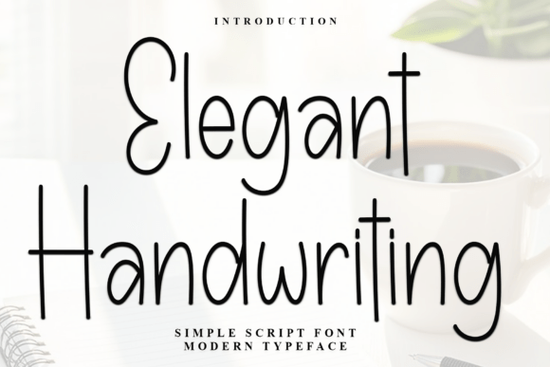
If you're looking for a script font that feels personal, graceful, and quietly confident not flashy or overdesigned Elegant Handwriting Font fits naturally into real creative work. It’s not just another swirly script; its soft entry and exit strokes, subtle contrast, and gentle rhythm make it feel hand-drawn without sacrificing readability. Whether you’re designing wedding stationery, labeling handmade soap jars, or creating social media graphics for a small boutique, this font adds warmth without shouting for attention.
When does Elegant Handwriting Font work best?
This font shines where authenticity matters more than perfection. Think handwritten-style quotes on greeting cards, delicate monograms on linen napkins, or minimalist product tags for ceramic mugs. Because it includes full Latin character sets including punctuation, numbers, and multilingual accents it handles real-world use cases: bilingual baby announcements, café menus with French accents, or Etsy shop banners that need both uppercase flair and lowercase flow.
It’s especially useful if you’ve tried other script fonts only to find they either look too stiff (like calligraphy traced from a rigid template) or too chaotic (with unpredictable ligatures that break layout consistency). Elegant Handwriting strikes a balance: each letter connects smoothly but predictably, and spacing stays even across words even at smaller sizes like 14–16pt in printed labels or digital overlays.
How it compares to similar script fonts on Creative Fabrica
While Wistallion Font leans into bolder, high-contrast drama great for logos or headlines Elegant Handwriting is softer and more adaptable for body text or layered compositions. If you love the romantic feel of Sweet Marigold Font, you’ll recognize a shared gentleness here but Elegant Handwriting has slightly more open counters and less tight baseline alignment, which helps with legibility in longer phrases.
For wedding-focused projects, Bride Squad Font brings playful energy and bounce, while Elegant Handwriting offers quieter elegance ideal when your client prefers “timeless” over “trendy.” And unlike Stanley Font, which uses sharp angles and modern geometry, this one keeps its curves organic and unhurried.
Practical tips for using it well
Script fonts can be tricky to pair, but Elegant Handwriting works beautifully with clean, neutral sans-serifs like Montserrat, Lato, or Open Sans. Try setting headlines in Elegant Handwriting and body copy in a light-weight sans-serif this contrast creates visual hierarchy without competing personalities.
Avoid stacking multiple script fonts on one layout. One is enough. If you want variation within the same family, use the font’s built-in stylistic alternates (if included) or switch weight only e.g., regular for names, light for taglines. Also, test print samples early: some scripts lose subtlety on low-resolution printers or matte paper. A quick test strip of “The quick brown fox…” helps spot spacing hiccups before final output.
Where you’ll see it used most often
- Print-on-demand shops: Tote bags, tea towels, and journals where handwritten charm signals care and craftsmanship
- Small food businesses: Jam labels, bakery chalkboard signs, or coffee sleeve wraps
- Wedding vendors: Save-the-dates, place cards, and ceremony programs especially for rustic, garden, or vintage themes
- Hobbyists: Scrapbooking, bullet journaling, and custom gift tags where personality matters more than polish
One thing to keep in mind: script fonts aren’t always ideal for accessibility-heavy contexts (like long web paragraphs or ADA-compliant signage), so reserve Elegant Handwriting for short-form, expressive uses not functional text. That’s not a limitation it’s how it’s meant to be used.